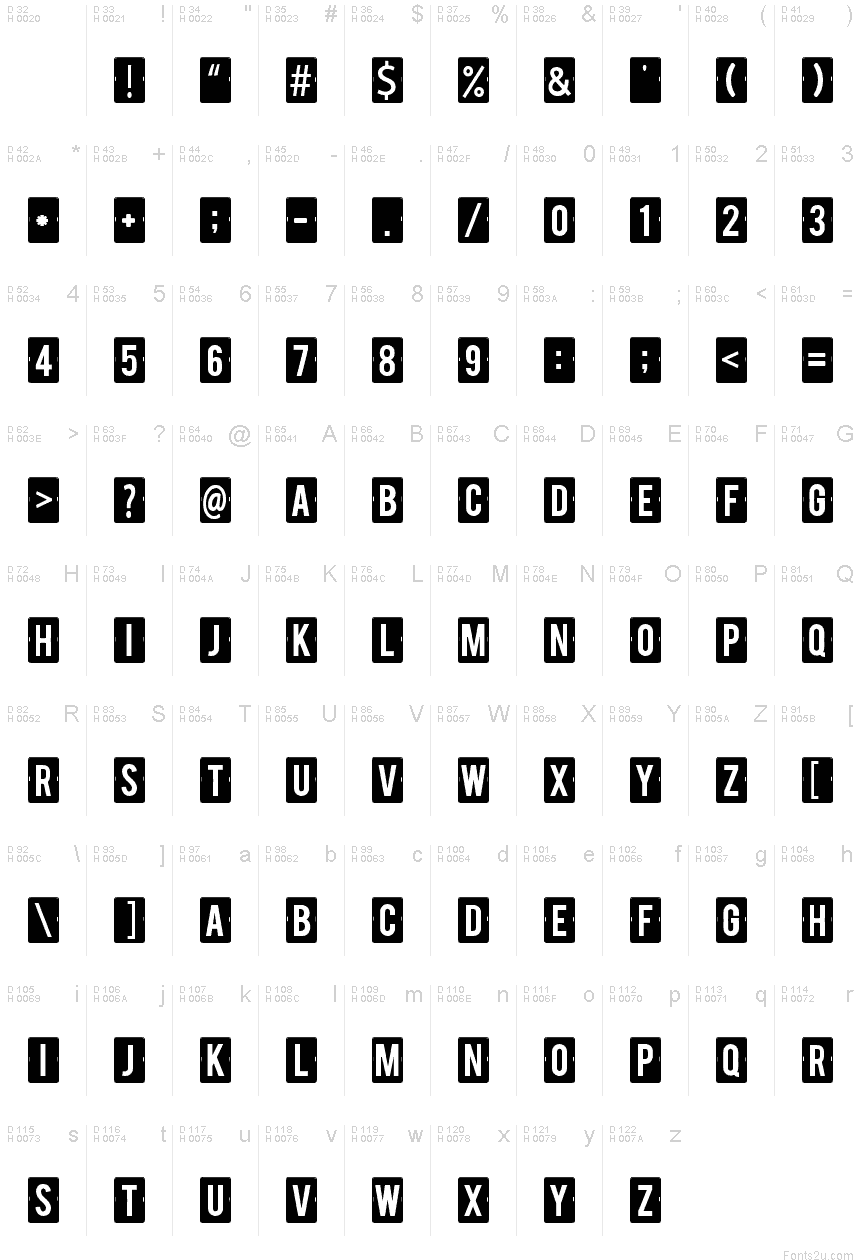
Calendar Note TFB is a free decorative caps font with tall, tightly condensed letters enclosed by rounded rectangular frames that resemble machine labels. Side ticks and an inset top line sharpen the frame.
As a ready-made sign or control-panel system, the font suits calendar graphics, event posters, product packaging, and themed merchandise rooted in mid-century industrial display design. The enclosed letters can also become interface keys or control-panel markers for retro technology, arcade games, and film or science-fiction screen graphics.